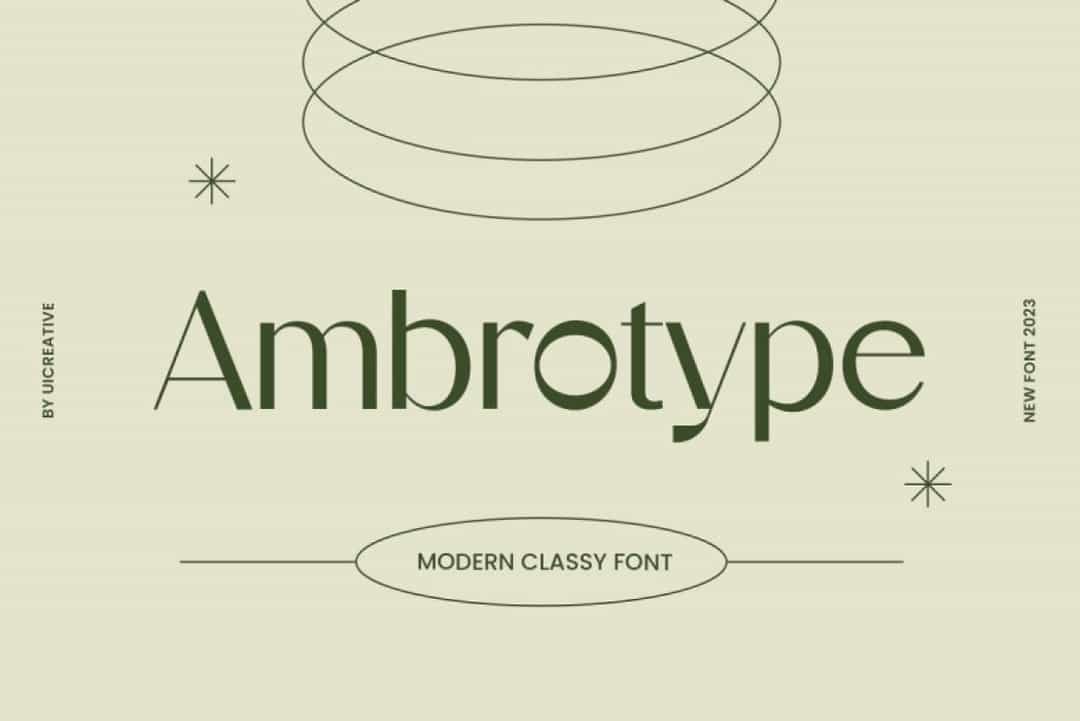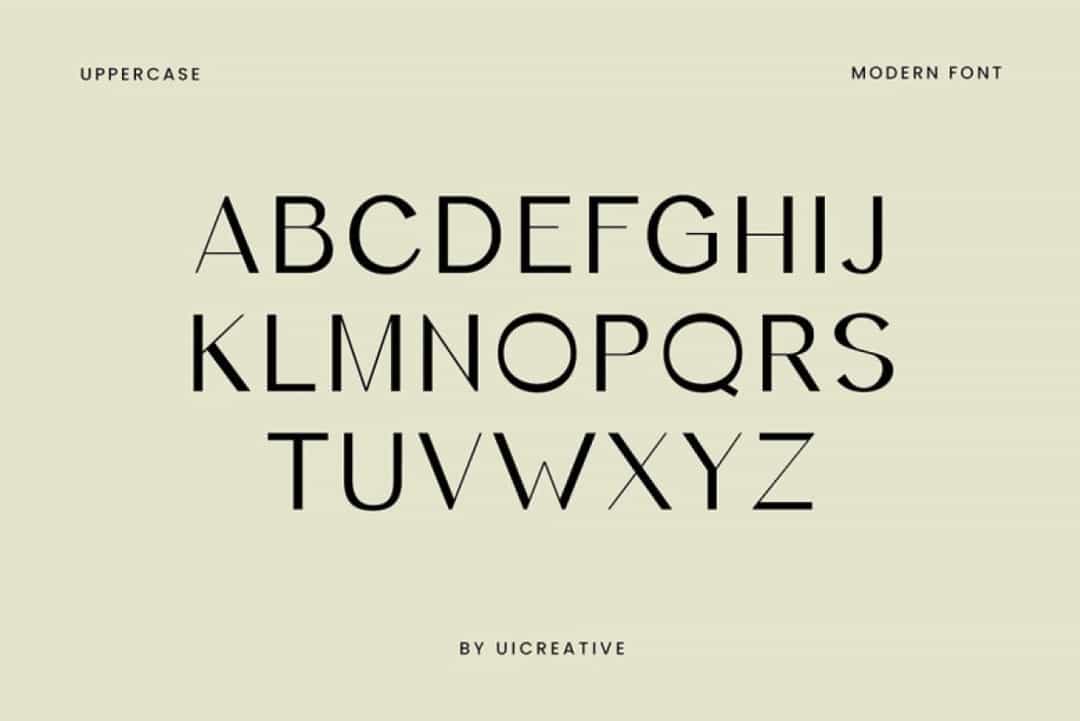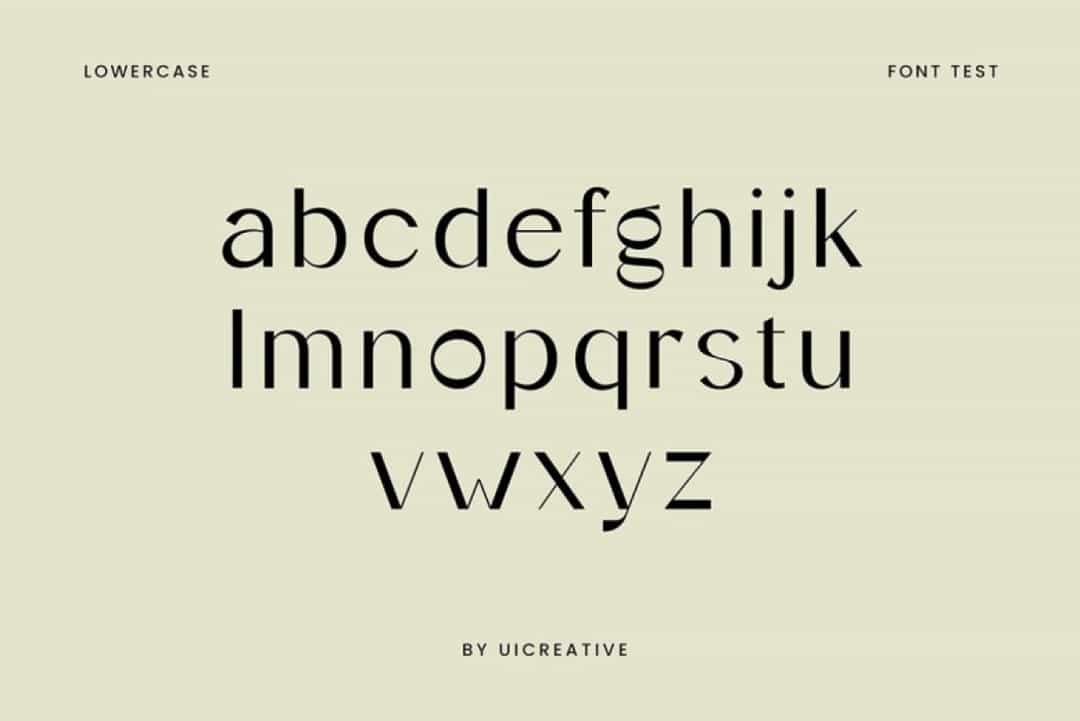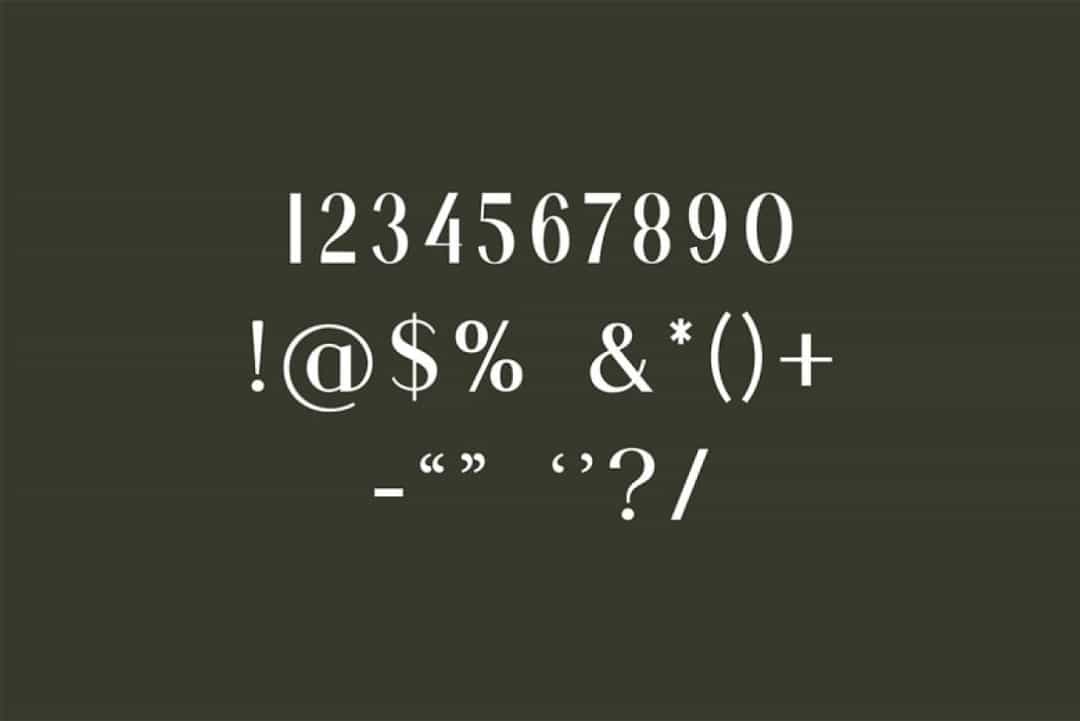
Ambrotype is an elegant and beautiful sans serif font designed to fit seamlessly into contemporary designs, from logos to signatures, stationery weddings, typography quotes magazines or book covers, headers on websites and branding clothing packaging; Ambrotype can help bring fashion-related branding or editorial designs alive by emphasizing both feminine and masculine qualities.